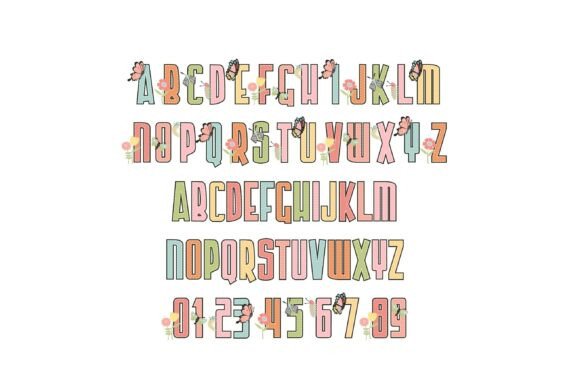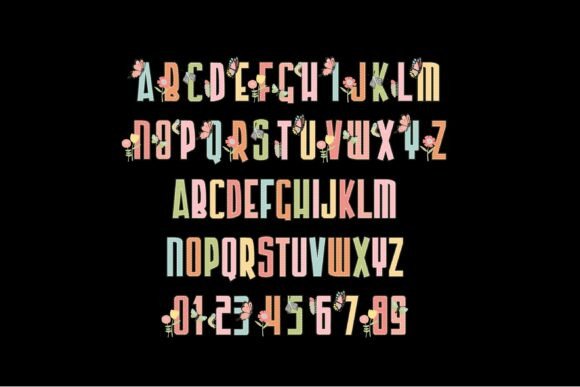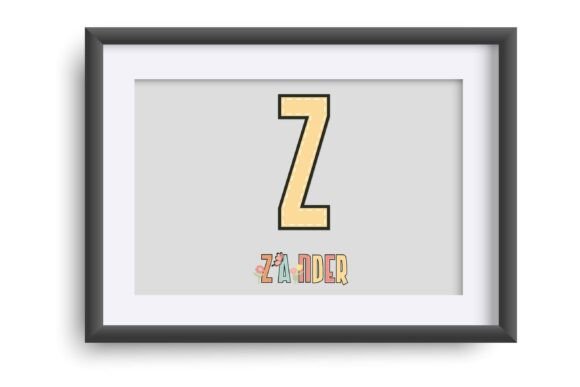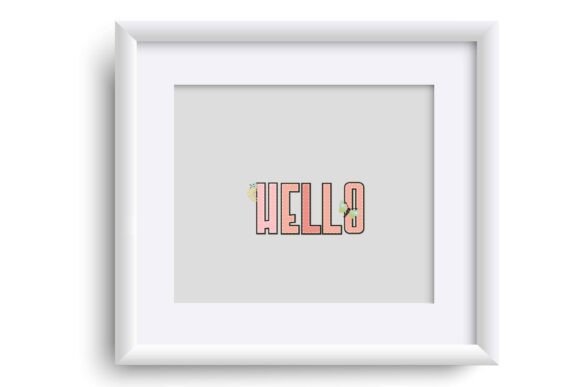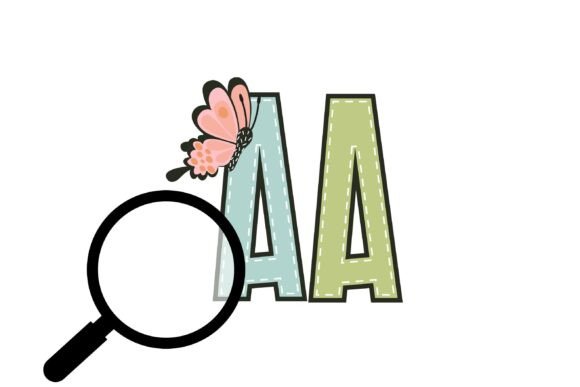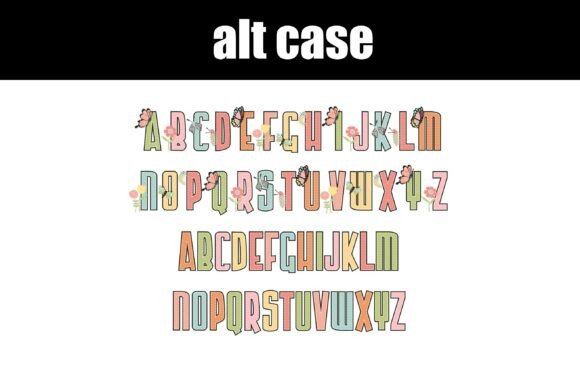
Discover the Whimsical Charm of Butterfly Kisses Font
I’ll never forget the moment I stumbled upon the perfect font for a project that had been lingering in my design queue for weeks. I was working on a branding package for a local garden center, and I needed a typeface that would evoke a sense of natural tranquility and artisanal charm. That’s when I discovered Butterfly Kisses, an elegant full-color SVG font that would become the crowning jewel of my design.
• ✨ Elegant and delicate design featuring tall, slender block letters with a realistic stitched border accent
• ✅ Poetic visual rhythm that showcases a vintage-inspired earth-pastel palette
• ✅ Hand-illustrated monarch butterflies, moths, and long-stemmed wildflowers that beautifully climb across the characters
• ✅ Perfect for garden center branding, organic product labels, whimsical children’s book layouts, and cottagecore-themed social media graphics
• ⚠️ As a full-color SVG font, Butterfly Kisses may require more processing power and may not be suitable for low-end devices
• ⚠️ Limited character set, which may not be ideal for body text or extensive writing
• ⚠️ May require some experimentation to get the most out of its OpenType features and glyphs
The Story Behind Butterfly Kisses
The story behind Butterfly Kisses is one of passion and creativity. The font’s designer, inspired by the beauty of nature and the art of handmade crafts, set out to create a typeface that would capture the essence of a whimsical, enchanting world. With Butterfly Kisses, the designer aimed to bring a sense of natural tranquility and artisanal charm to digital design.
What is Butterfly Kisses font? Butterfly Kisses is an elegant full-color SVG font featuring a poetic visual rhythm and a vintage-inspired earth-pastel palette.
What is the best use for Butterfly Kisses font? Butterfly Kisses is perfect for garden center branding, organic product labels, whimsical children’s book layouts, and cottagecore-themed social media graphics.
Is Butterfly Kisses font suitable for body text? No, Butterfly Kisses is a display font and is best used for headlines, titles, and short text passages.